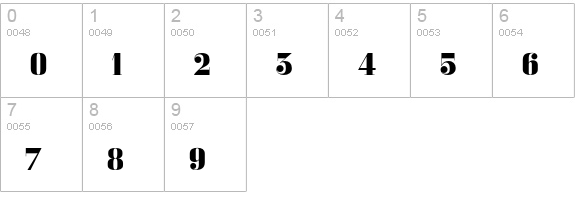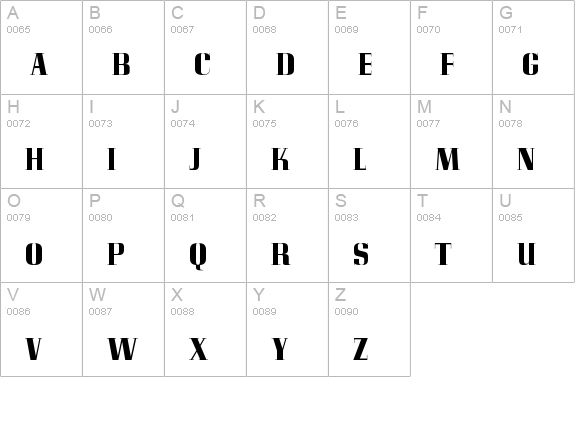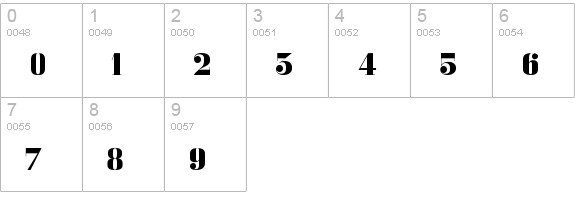
Skyline-Black Font Details
Skyline-Black is a maximum-weight, dramatic variant in the Skyline typeface family \xE2\x80\x94 well suited to maximum-impact headlines, posters, and packaging.
Introducing Skyline-Black, a bold and captivating font that exudes sophistication and modernity. With its sleek and slender letterforms, this typeface commands attention and adds a touch of elegance to any design project. Skyline-Black combines the perfect balance between classic and contemporary elements, making it suitable for a wide range of applications. Whether you're designing a logo, creating eye-catching headlines, or crafting stylish invitations, this font will effortlessly elevate your work to new heights. What sets Skyline-Black apart is not only its striking aesthetic but also its versatility. This typeface seamlessly adapts to various design styles, allowing you to experiment and explore different creative directions. Its clean and timeless appearance ensures legibility, making it a reliable choice for both print and digital media. And the best part? Skyline-Black is available for free download at FontsMarket.com. This means that you can easily obtain this remarkable font without breaking the bank. Embrace the opportunity to enhance your designs with Skyline-Black's premium quality without any financial constraints. Download Skyline-Black today and unlock a world of design possibilities. Let your creativity soar with this extraordinary font that seamlessly merges sophistication and modernity. With its availability for free at FontsMarket.com, you have the chance to elevate your designs without any limitations. Don't miss out on the opportunity to make a lasting impression with Skyline-Black.